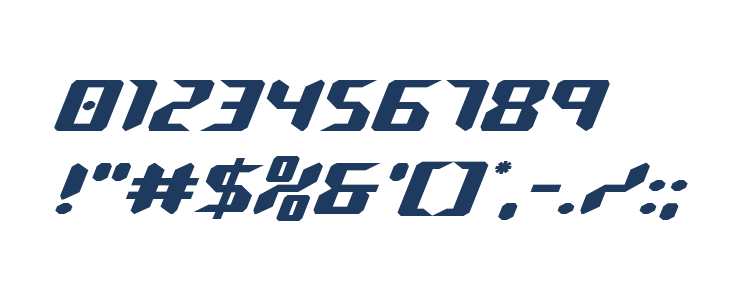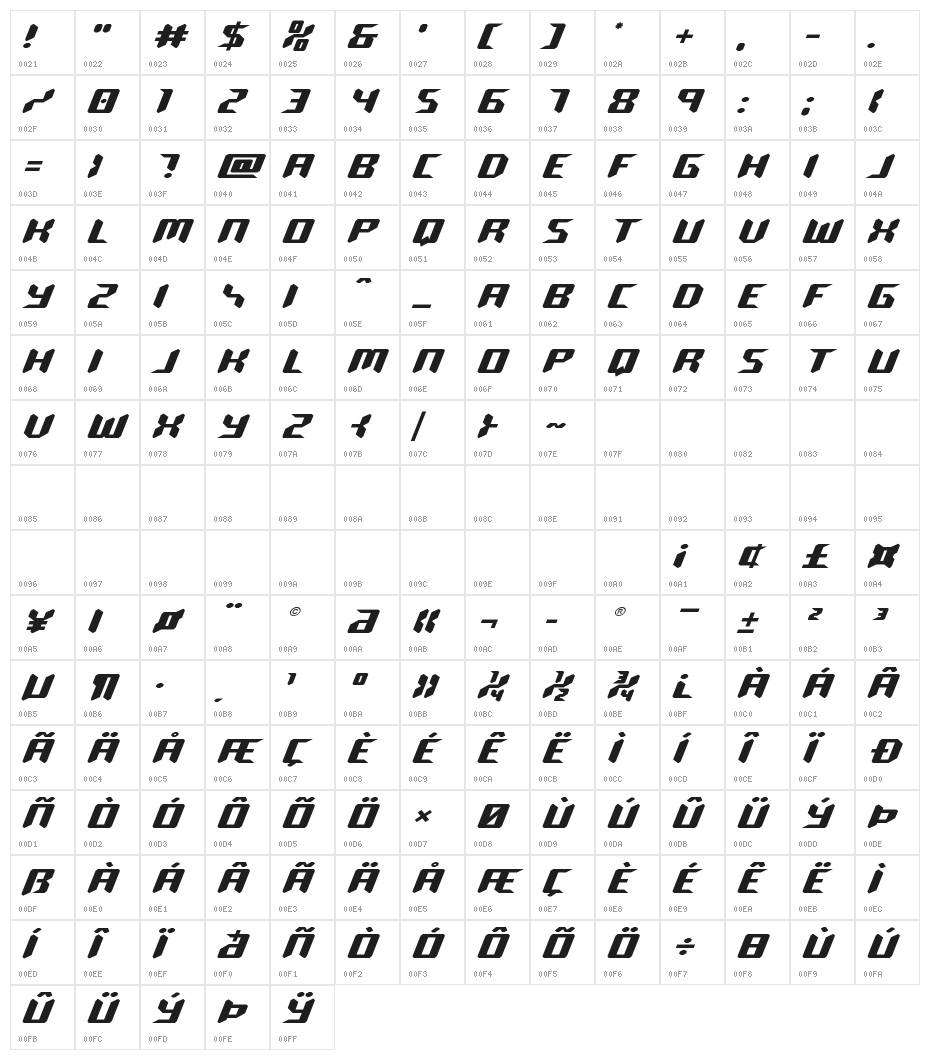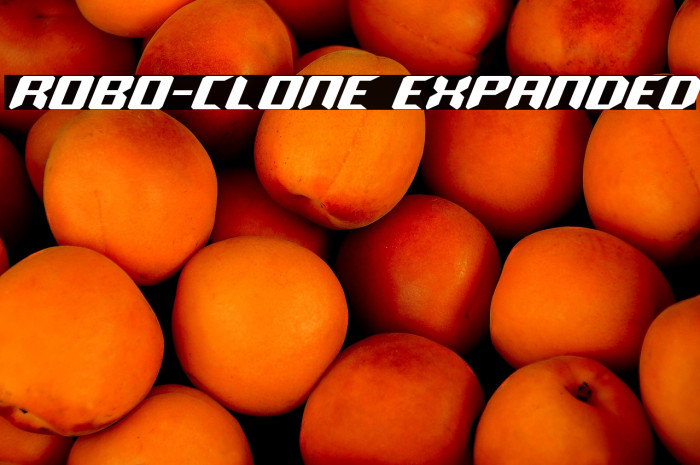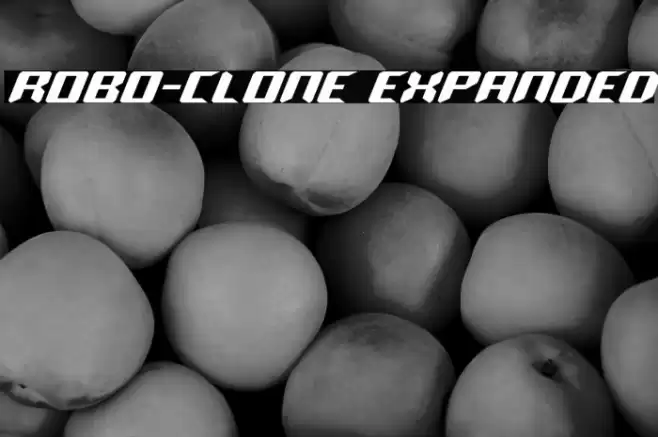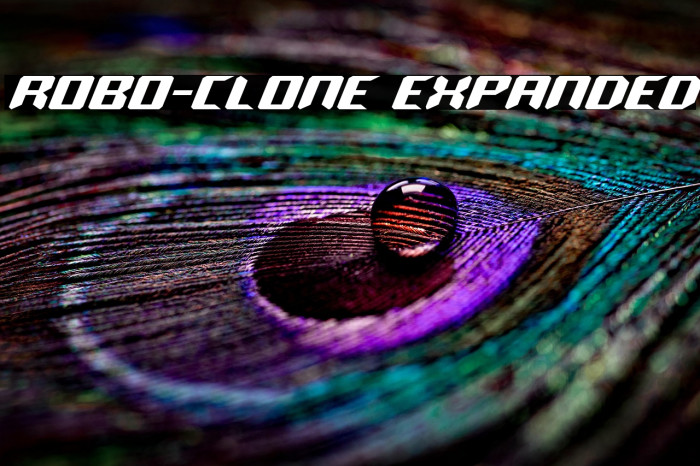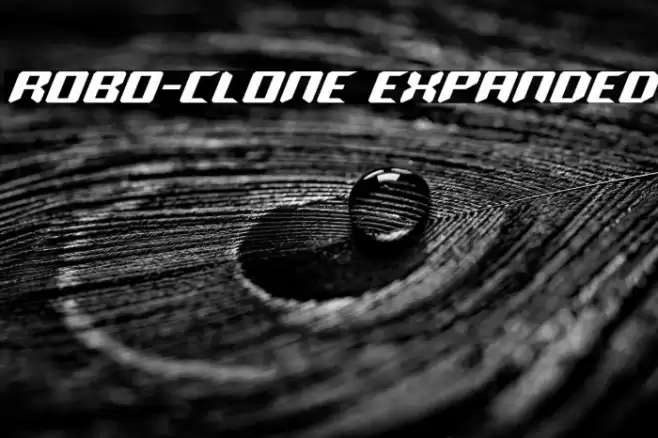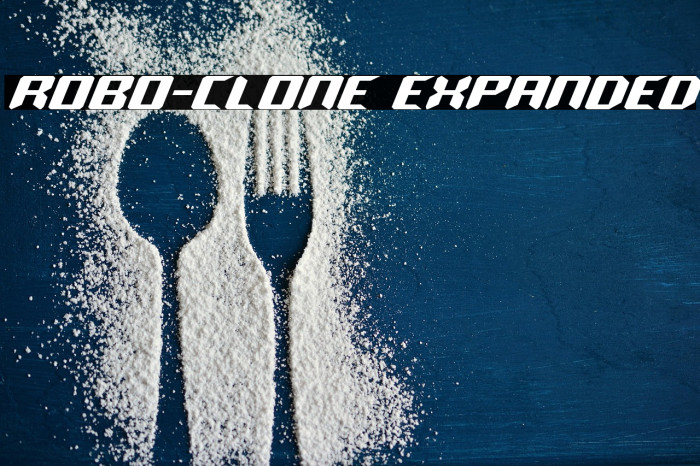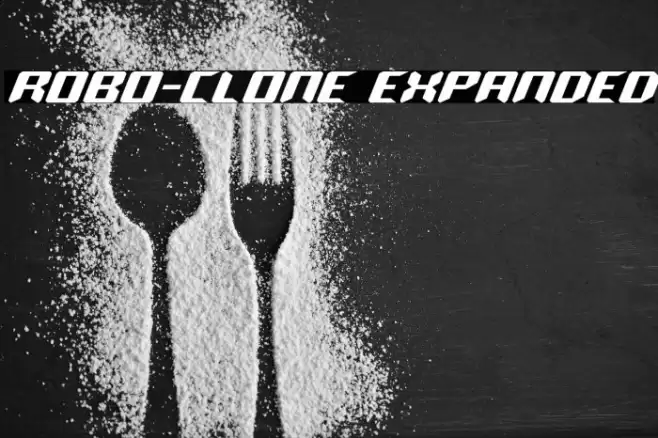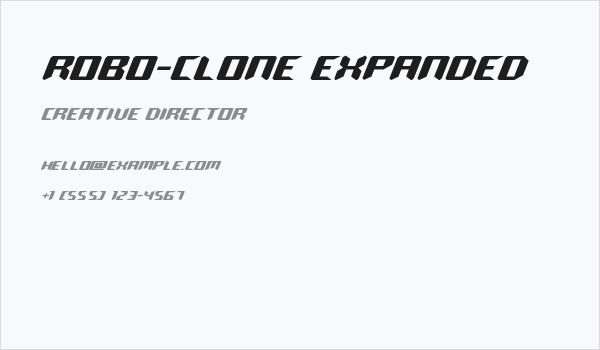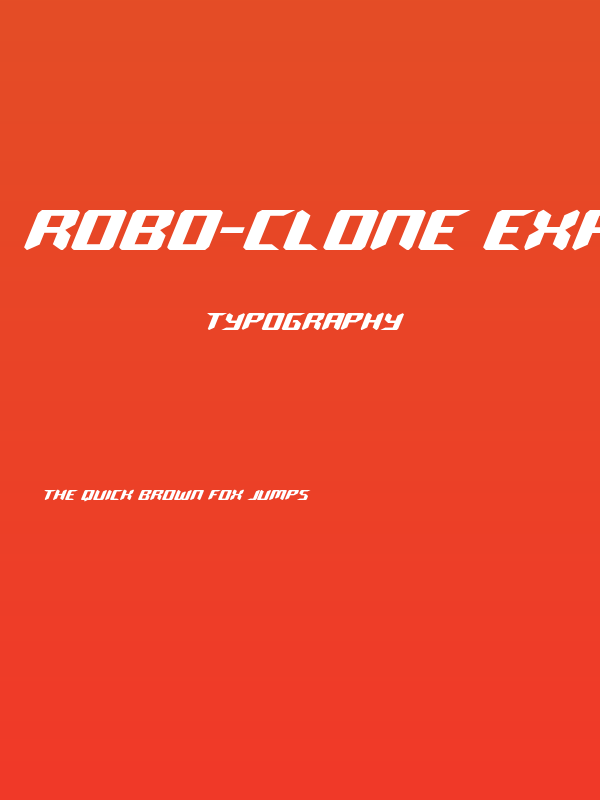
Robo-Clone Expanded Font
Robo-Clone Expanded Description
This font features a bold and futuristic design with sharp, angular edges and a distinct slant, giving it a dynamic and energetic appearance. The characters are wide and expansive, contributing to a sense of movement and speed. The uppercase and lowercase letters maintain a consistent style, with a geometric structure that emphasizes modernity. The numerals and special characters are equally bold, ensuring uniformity across all elements. This font's unique style makes it stand out, ideal for projects that require a strong visual impact.
| Proposed Projects | Ideal for sci-fi themed projects, video game titles, tech branding, and futuristic posters. |